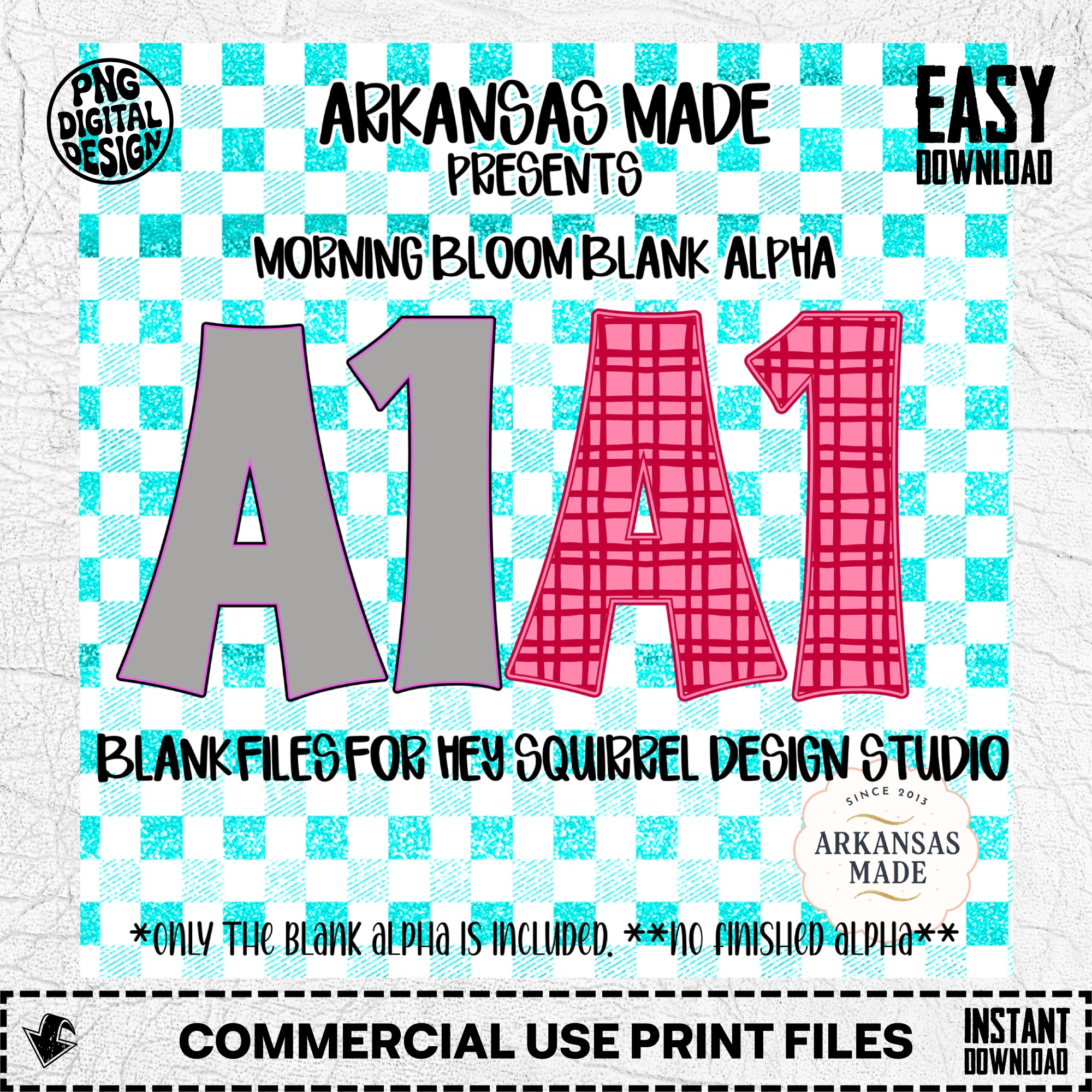
Digital Blank Alpha for Hey Squirrel Design Studio | Morning Bloom Font Outline | Crafting Letters & Numbers PNG SVG
Unlock endless creativity with this Digital Blank Alpha for Hey Squirrel Design Studio, featuring versatile Morning Bloom font outlines. Perfect for crafters! This essential blank letters and numbers pack offers clean, customizable digital resources for all your design projects. Ideal for graphic designers, small business owners, and DIY enthusiasts looking to personalize items, create unique merchandise, or develop branding. A thoughtful digital gift for aspiring artists or anyone launching a creative venture.